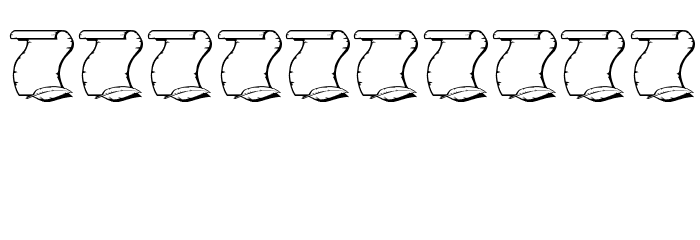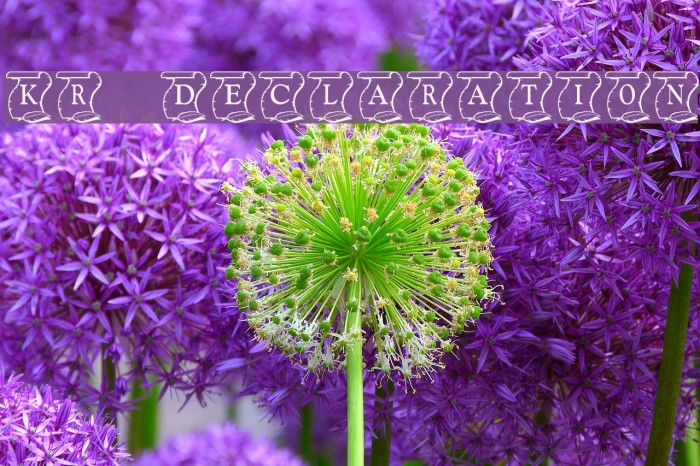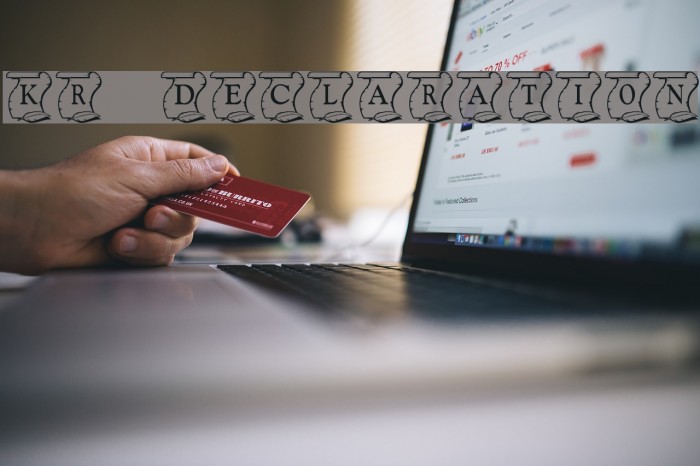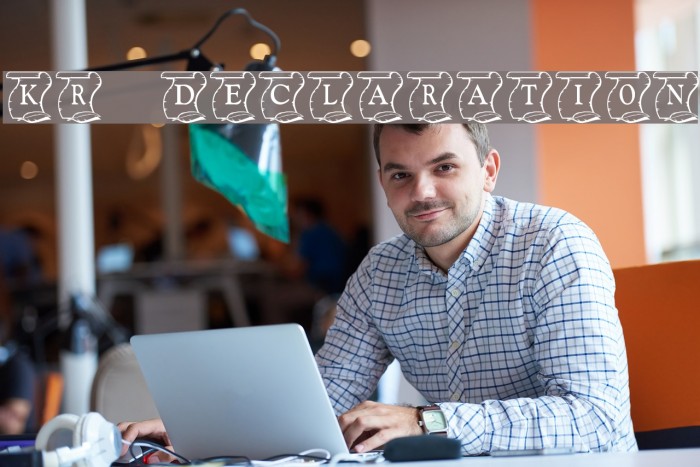
KR Declaration Font
This decorative font features uppercase letters styled within scroll-like frames, giving it a unique and historical appearance. Each letter is encased in a parchment-like scroll, adding a sense of antiquity and elegance. The font is highly ornamental, making it suitable for projects that require a vintage or classical touch. The letters are bold and clear, ensuring readability despite the decorative elements. This font does not include lowercase letters or numbers, focusing solely on uppercase characters, which enhances its use for specific design purposes.
A decorative font with uppercase letters in scroll-like frames, offering a vintage look.
- Proposed Projects: Ideal for historical documents, invitations, certificates, and decorative headings.
- Overall Style: Vintage